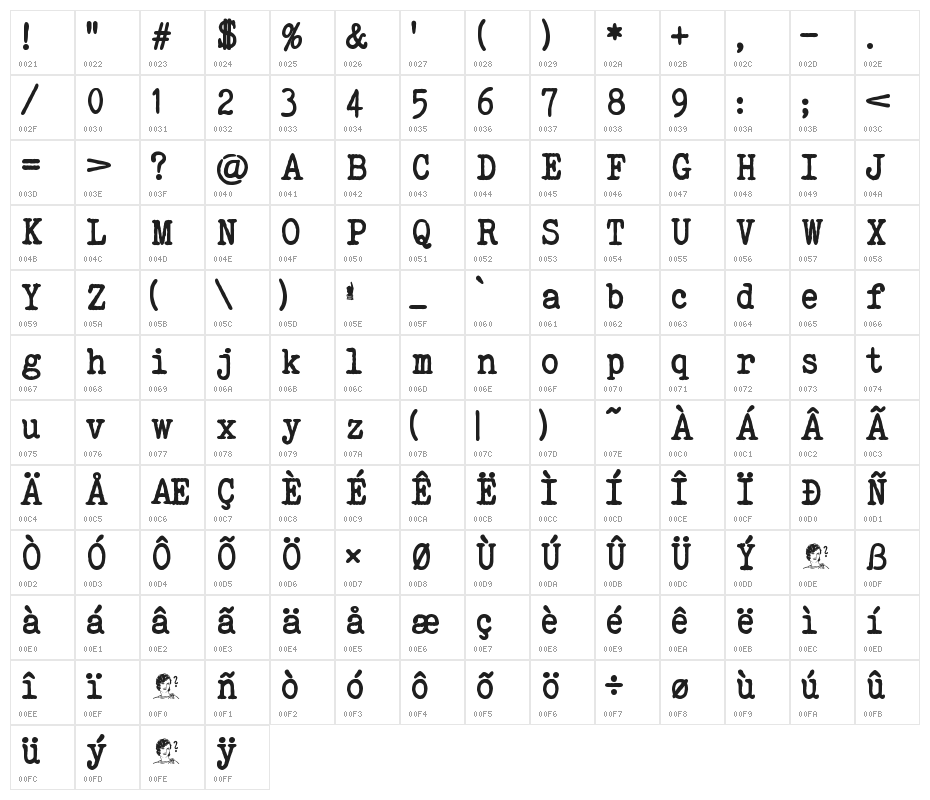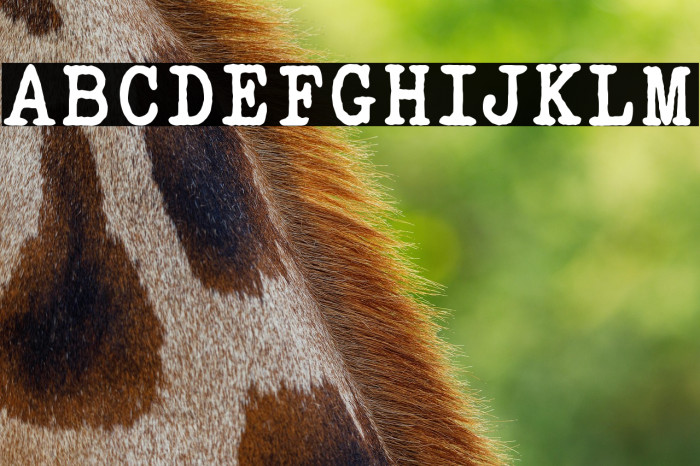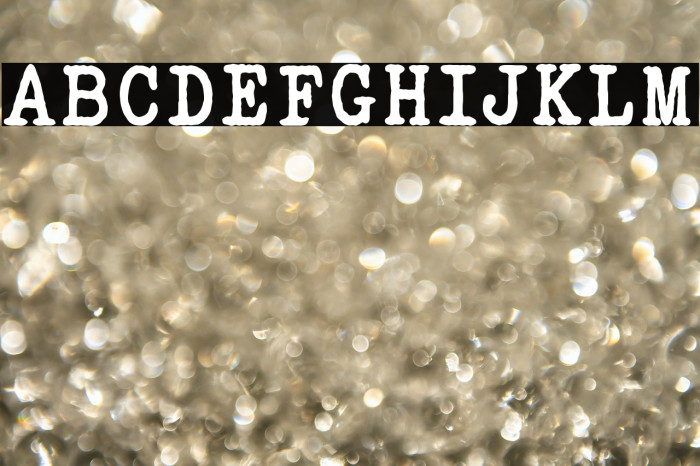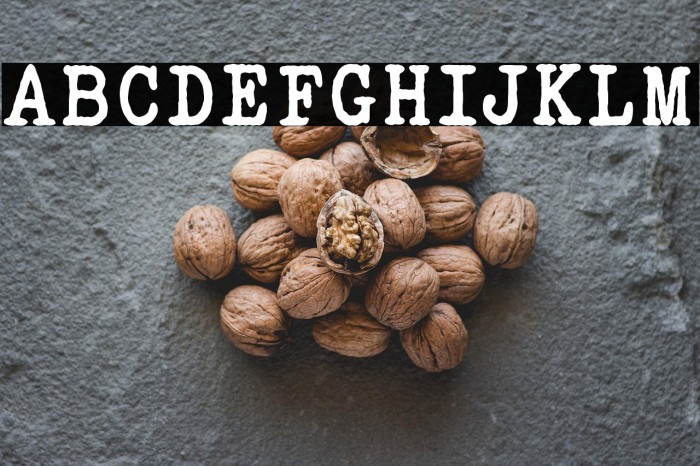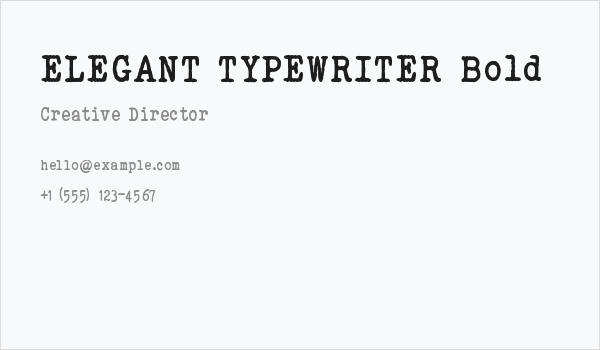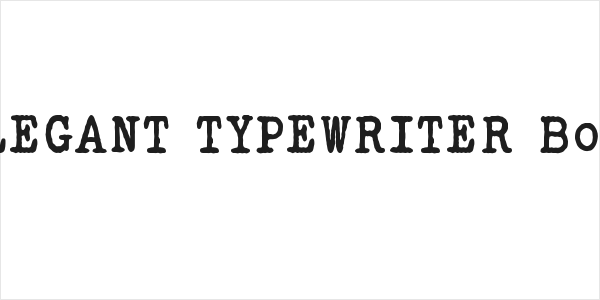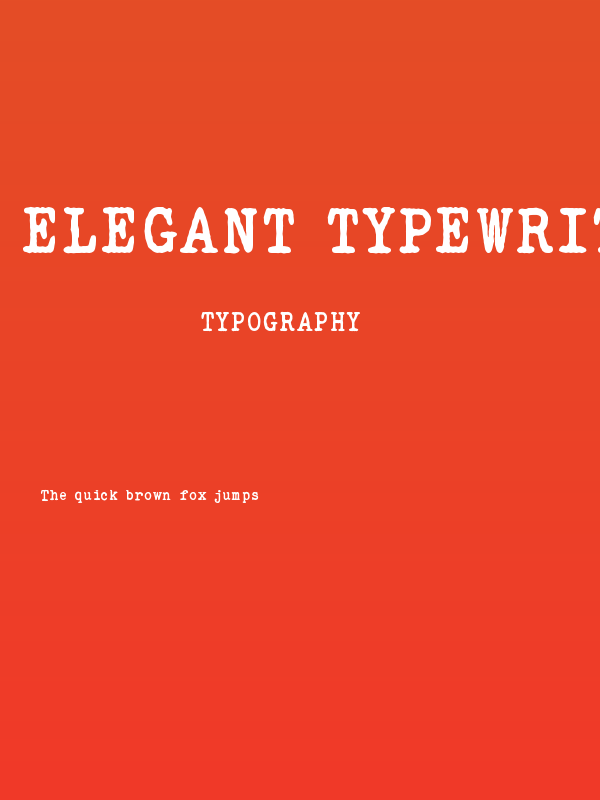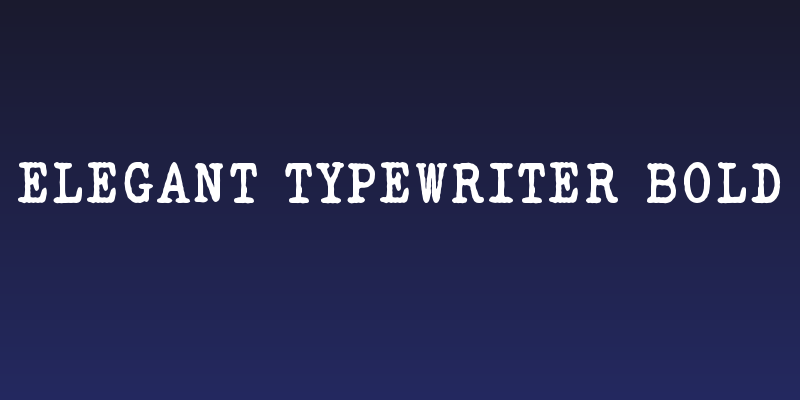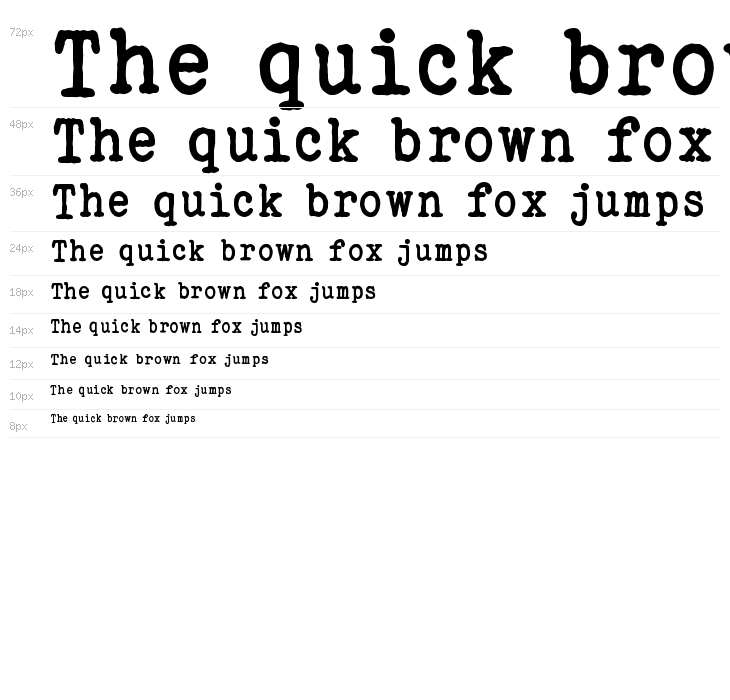
ELEGANT TYPEWRITER Bold Font
ELEGANT TYPEWRITER Bold Description
This font exudes a vintage charm reminiscent of classic typewriter styles, characterized by its bold and slightly irregular strokes that give it an authentic, mechanical feel. The uppercase and lowercase letters maintain a consistent style, with rounded edges and a slight texture that mimics the inked impressions of a traditional typewriter. Numbers and special characters are equally bold, ensuring readability and a cohesive look across all text. The font's boldness and distinct style make it ideal for projects that require a retro or nostalgic touch, while its clear legibility ensures it remains functional for various applications.
| Proposed Projects | Perfect for retro-themed designs, vintage posters, typewriter art, and branding that requires a nostalgic touch. |